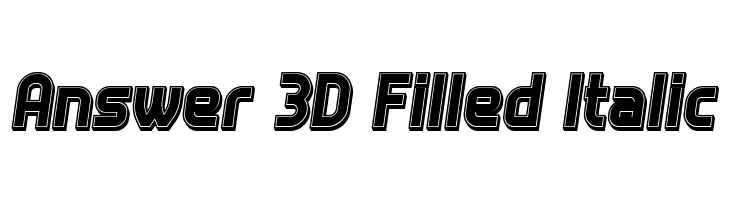
A bold, 3D-filled italic font with a dynamic and modern style.
A bold, 3D font with filled centers and strong outlines, perfect for impactful designs.
A bold, italic font with a dynamic and modern style.
A bold, modern sans-serif font with clean lines and geometric shapes.